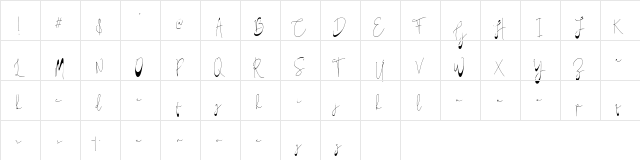
Dark Saturday Regular
| Designer | Alvaro Ariel. 2019. |
Design Context for Dark Saturday Typeface
Dark Saturday is a composed and adaptable typeface that performs quietly and consistently across a wide range of design contexts.